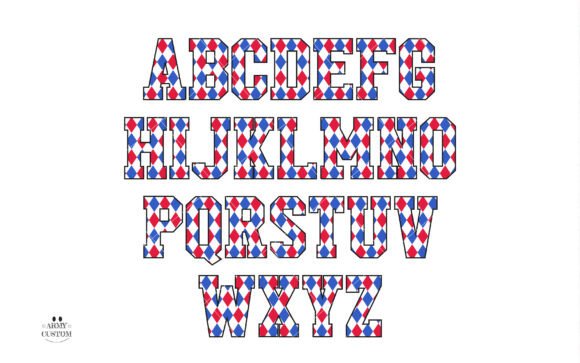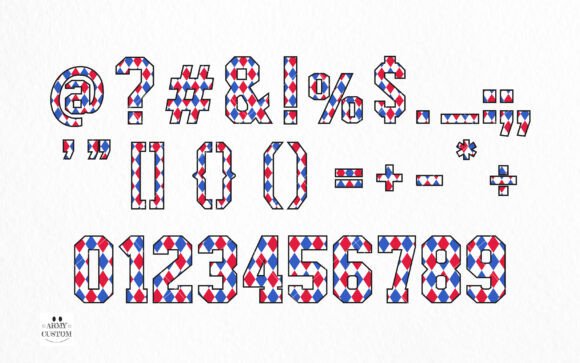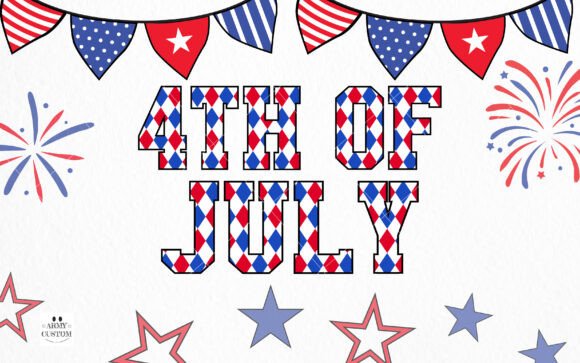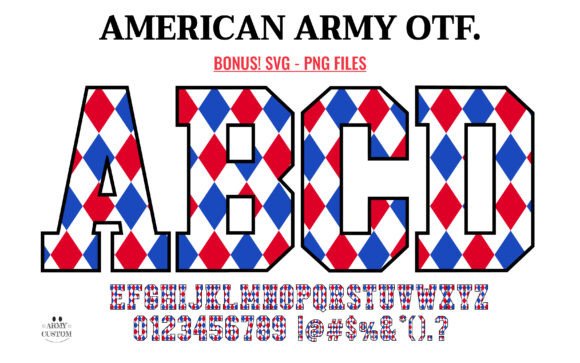
Introducing the American 4th of July Font: A Patriotic Celebration in Typography
As the United States prepares to celebrate its Independence Day on the 4th of July, designers and crafters are on the lookout for creative ways to infuse their projects with a patriotic spirit. If you’re looking for a font that embodies the essence of American aesthetics, look no further than the American 4th of July Font. This uniquely designed font is a tribute to the Land of the Free, capturing the charm and spirit of the United States in every curve and line.
A Font that Embodies Patriotism
The American 4th of July Font is more than just a typography design – it’s an expression of patriotism. Inspired by the heart of the United States, this font is perfect for designers and crafters who want to add a touch of American pride to their creative projects. Whether you’re working on a DIY craft, a digital design, or a marketing campaign, this font is sure to bring a sense of national pride and unity to your work.
Unique Design and Compatibility
Adding a Patriotic Touch to Your Projects
The American 4th of July Font is a versatile design that can be used in a wide range of creative projects. Here are a few ideas to get you started:
- Patriotic DIY Crafts: Use the American 4th of July Font to add a personal touch to your DIY crafts, such as handmade cards, gift tags, and decorations.
- Digital Designs: Add a patriotic flair to your digital designs, including social media graphics, blog posts, and marketing campaigns.
- Party Invitations: Create eye-catching party invitations and announcements that showcase your patriotic spirit.
- Custom Signs: Design custom signs and banners that feature the American 4th of July Font, perfect for outdoor events and celebrations.
Tips for Working with the American 4th of July Font
To get the most out of the American 4th of July Font, here are a few tips to keep in mind:
- Experiment with Colors: While the black version of the font is perfect for cutting machines, don’t be afraid to experiment with different colors and textures to add depth and interest to your designs.
- Pair with Other Fonts: Combine the American 4th of July Font with other fonts to create unique and eye-catching typography designs.
- Use in Combination with Images: Use the font in combination with patriotic images, such as flags, eagles, and stars, to create visually striking designs.
The American 4th of July Font is a unique and versatile design that embodies the spirit of patriotism and American pride. Whether you’re a designer, crafter, or simply someone who loves to celebrate American holidays, this font is sure to infuse your creative projects with a sense of national pride and unity. With its compatibility with various design programs and cutting machines, you can use this font to create a wide range of projects, from DIY crafts to digital designs. So why not give it a try and see how you can use the American 4th of July Font to add a patriotic touch to your next project?